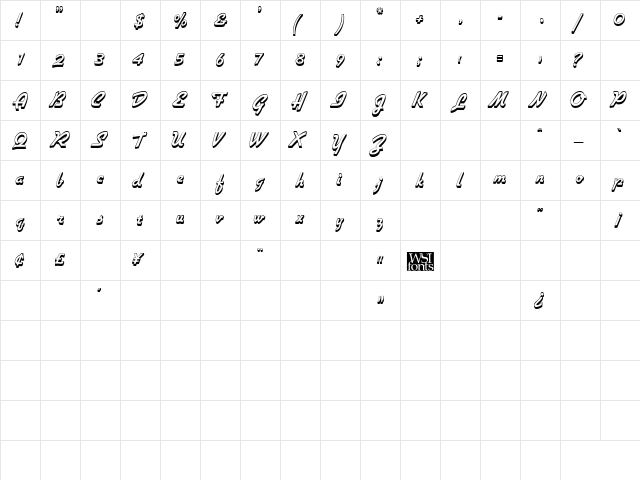
GallanteOutline Regular
Design Context for GallanteOutline Typeface
GallanteOutline brings ornamental detail and strong personality to headlines and identities, where visual impact matters more than quiet functionality.
Font Pairing: Pair with a clean neutral sans-serif for body copy to let GallanteOutline's character lead without overwhelming the composition.
Pro Tip: Use GallanteOutline exclusively at display sizes — it was designed to be seen, not read at length. Let a neutral companion handle body copy.